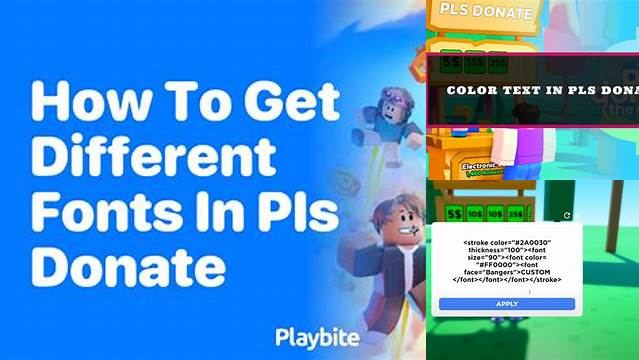
Customize Fonts In PLS DONATE
Hey guys! Ever wondered how to make your PLS DONATE booth stand out from the crowd? One of the coolest ways to do that is by customizing your fonts. It's like giving your booth a fresh coat of paint, making it pop and attracting more attention. In this article, we'll dive deep into everything you need to know about changing those boring default fonts and turning your donation booth into a visually stunning masterpiece. We'll cover the basics, the more advanced stuff, and even some neat tricks to make your booth truly unique. So, grab your favorite drink, get comfy, and let's get started on this awesome journey of font customization!
Why Customize Fonts in PLS DONATE?
Alright, before we jump into the nitty-gritty, let's talk about why you should even bother with font customization. Think about it: PLS DONATE is all about getting those sweet, sweet Robux, right? And to do that, you need to grab people's attention. A generic-looking booth can easily get lost in the sea of other donation spots. Custom fonts are like a secret weapon in this battle. They make your booth more visually appealing, making people want to stop and check it out. When you choose the right fonts, they can convey the message you want to send. Need to show off that you are selling a high-value item? Use a bold and professional font. Trying to give off a fun and quirky vibe? A playful font might be perfect. Customizing your font helps you create a cohesive brand for your booth, it helps people remember you and makes you more likely to get those donations. Also, different fonts are perfect for targeting various audiences. Using child-friendly fonts to grab the attention of the young audience. Make it easier for people to read the text in your booth. This is especially crucial because, in a crowded environment, it's important to give a great first impression. And hey, it's a lot of fun to get creative with it! Experiment with different fonts, colors, and styles until you find the perfect look. The more creative you are, the more likely people are to be interested in your booth!
Understanding the Basics: Roblox and Fonts
Before we get into the nitty-gritty of font customization, it's important to understand how Roblox handles fonts. Roblox uses a specific set of fonts that are pre-loaded into the platform. You can't directly upload your own fonts like you might on a website. However, there are clever workarounds to use different fonts in your PLS DONATE booth. Roblox uses something called UI objects to display text. UI objects include things like TextLabels, TextButtons, and TextBox, and we'll be working with the TextLabel to customize our font to get the result we are looking for. The crucial thing to know is that these UI elements have a 'Font' property. This is where you can choose from a limited selection of pre-loaded fonts. The key to customizing your font is in the TextLabel options, which includes a bunch of pre-loaded fonts that may suit your need, from GothamBold to SourceSansBold, each has their own unique feel to them. Even if you cannot install a custom font, the variety of fonts available is still a solid choice for you. Once you have a good understanding of how these objects work, you can choose fonts from a variety of text fonts that suit the style and feel of the booth you're going for. Don't worry, we'll guide you through each step in detail. Now, let's get to the fun part: customizing the fonts!
Step-by-Step Guide: Customizing Fonts in PLS DONATE
Ready to roll up your sleeves and get your hands dirty? Let's go through the step-by-step process of customizing your fonts in PLS DONATE, making sure you are able to use the UI element to make your font stand out. Since you can't directly upload custom fonts, we'll use a method that allows you to achieve a similar result. Here's what you need to do:
- Access the PLS DONATE Booth Editor: Start by entering the PLS DONATE game. Once you're in, go to your booth and interact with the editor to begin customizing your booth. If you don't know where to start, the booth editor is an interactive option that you can use to make edits and changes to your booth. It is important to note that you need to be in your booth to edit the text.
- Add a TextLabel: Inside the editor, look for the option to add a TextLabel. This is where you will display your custom text. The location of the TextLabel in the editor depends on the game's interface. Typically, there will be a button or menu option to add this element. Click the button and you can add a text box to your booth.
- Customize the Text: Double-click the TextLabel to edit the text inside. Now, change the words and phrases of your booth to make it stand out. You can add any text you desire, such as your username, the items you are selling, or a catchy slogan to draw in potential donors. The text box also gives you various options to edit the content and style of your text.
- Change the Font: Select the TextLabel and go to the Properties window. Here, you will see a 'Font' property. Click on the dropdown menu to see the list of available fonts. Roblox provides a variety of fonts, from bold and modern to playful and cartoony. Experiment with different fonts to find one that fits your booth's theme. Choosing the right font is crucial because it sets the tone for your booth and can influence potential donors. You can choose different font sizes to make sure your text stands out and to catch the attention of anyone that may pass by. You can experiment with different styles, sizes, and colors of your text. Try to keep your booth as neat as possible to make it visually attractive and easy to navigate.
- Adjust Size and Position: After you've chosen your font, adjust the size and position of the TextLabel. Make sure the text is easily readable and doesn't block any important elements of your booth. You might need to resize the text box, position it, or change the text's alignment. To modify the text size, you'll find options to change it under the properties window, where you can adjust the text size to fit your needs. Also, you can change the overall size of the TextLabel to suit your needs. The position of your text is crucial. Use your best judgment to make sure your text is easily readable and clearly visible. Positioning the text in a way that is consistent and does not block any of your items helps give a good impression of your booth.
- Color and Style: To make the text even more eye-catching, play around with the 'TextColor3' property to change the color of the text. You can also use the 'TextStrokeColor3' and 'TextStrokeTransparency' properties to add an outline to your text. This can make the text stand out against the background. Text color and style are a great tool to give your booth that custom feel. Use colors that complement your booth's theme. Experiment with different colors and styles until you find the perfect look. The use of outlines can also make your text stand out. Consider adding a color that contrasts with the text color, such as black or white. Remember, the goal is to make your booth visually appealing and easy to read.
- Test and Refine: Once you've made the changes, test your booth to see how the new font looks in action. Make any necessary adjustments to size, position, or color. The best way to ensure your booth stands out is to get feedback from other players. It is important to test the booth to see how the font is displayed in the game and make any necessary adjustments. Get some feedback from others on what looks good. The more time and care you take to customize your booth, the more likely you will make a lasting impression.
Conclusion: Elevate Your PLS DONATE Booth with Customized Fonts
Alright, guys, that's a wrap! Customizing fonts in PLS DONATE is a fantastic way to elevate your booth and attract more donors. By following the steps outlined in this guide and experimenting with the tips and tricks, you can create a visually stunning booth that stands out from the crowd. Remember, the goal is to create a booth that is not only visually appealing but also easy to read and understand. With a little creativity and effort, you can transform your booth into a donation powerhouse. Don't be afraid to experiment with different fonts, colors, and styles until you find the perfect look that reflects your brand and appeals to your target audience. Have fun, and happy donating!